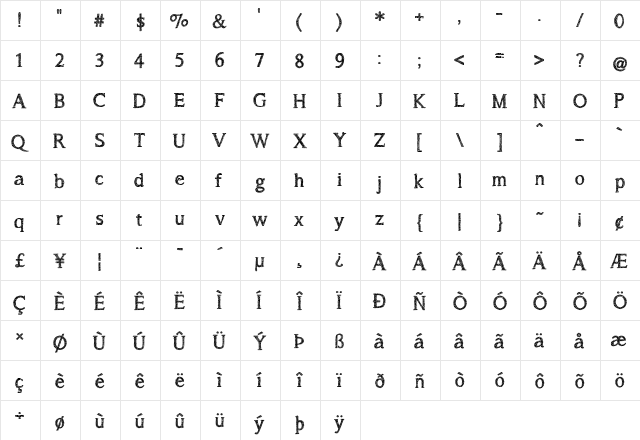
a song for jennifer Regular
| Foundry | Brittney Murphy |
| Designer | Brittney Murphy |
Design Context for a song for jennifer Typeface
a song for jennifer offers clean, dependable letterforms without strong stylistic allegiance, making it a practical choice for designers who need flexibility.